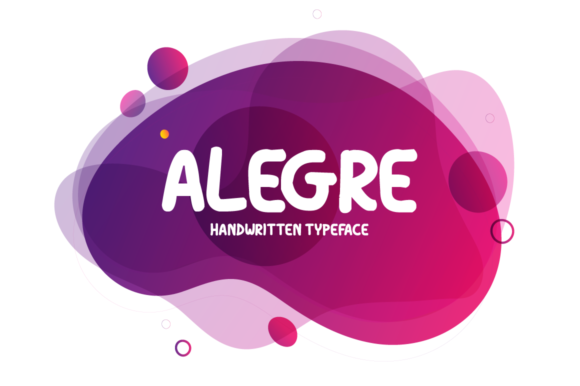
The Designer’s Delight: Uncovering the Charm of Alegre Font
I’ll never forget the time I was working on a branding project for a crafty DIY client, and I was struggling to find the perfect font. The client wanted something fun, clean, and strong – a font that would reflect their playful yet professional personality. After hours of scouring through font libraries, I stumbled upon Alegre, and it was love at first sight! ✨ In this article, I’ll share my experience with Alegre Font, its features, and how to make the most of it in your designs.
An Honest Review of Alegre Font
What I Love About Alegre Font
- ✅ Clean and strong design that’s perfect for logos, branding, and social media
- ✨ Fun and playful vibe that’s ideal for crafty DIY projects
- 🌈 Highly versatile and adaptable to various design contexts
- 👍 Excellent legibility, even at smaller font sizes
While Alegre Font is an excellent choice for many design projects, there are a few quirks to be aware of:
- ⚠️ Limited language support – Alegre Font may not be suitable for projects requiring extensive multilingual support
- 🤔 Some users may find the font too casual or playful for certain applications
The Story Behind Alegre Font
Alegre Font was designed with the intention of creating a fun, yet professional font that’s perfect for creative projects. The designer aimed to craft a font that’s both clean and strong, making it suitable for a wide range of applications.
Q: What type of projects is Alegre Font best suited for?
A: Alegre Font is perfect for logos, branding, social media, and crafty DIY projects that require a fun, yet professional font.
Q: Is Alegre Font suitable for body text?
A: While Alegre Font is legible, it’s primarily designed as a display font. You may want to consider a different font for body text.